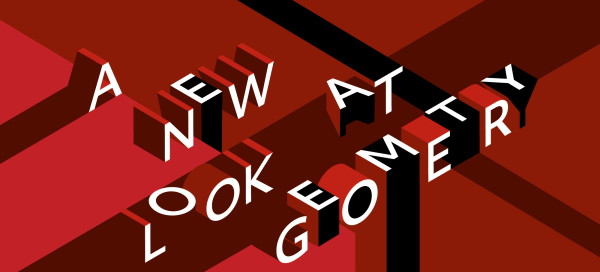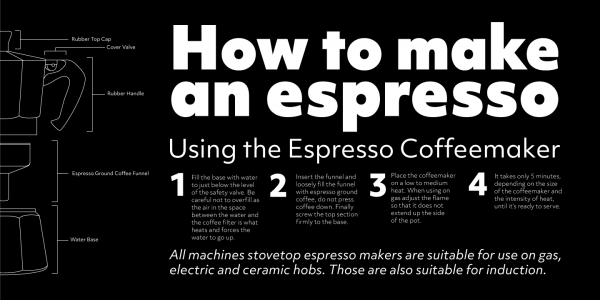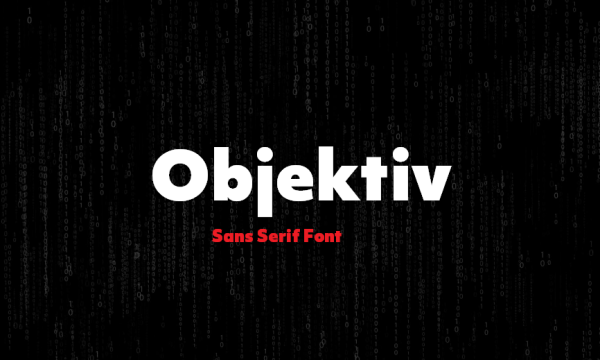
Objektiv Font
Objektiv Font is one of the most popular font families in our library. Its clean sans serif design, its human appeal, and its new look at geometry have captured the imaginations of designers and brands since its release in 2015.
It shapes might initially appear to be perfect circles, but have in fact been carefully crafted to account for the way that humans perceive the world; the proportions of the characters are harmonious and follow what our eyes judge to be correct, rather than being dictated by pure geometry.
It is named after the objective lens, the lens closest to the object being viewed through a camera, microscope, or telescope. It three variants echo the way that the positions of lenses can be adjusted to zoom from the macro to the micro. For the macro scale of display setting, Objektiv Mk1 is classically geometric with uncompromising shapes, while for the micro scale of body copy, Objektiv Mk3 delivers maximum legibility.
This flexibility and adaptability makes It perfect for a wide variety of applications and media, from editorial and instructional to branding and user interfaces.
It covers the Latin, Greek, and Cyrillic writing systems, supporting over 130 languages, and is also available as a variable font, for use in compatible software.